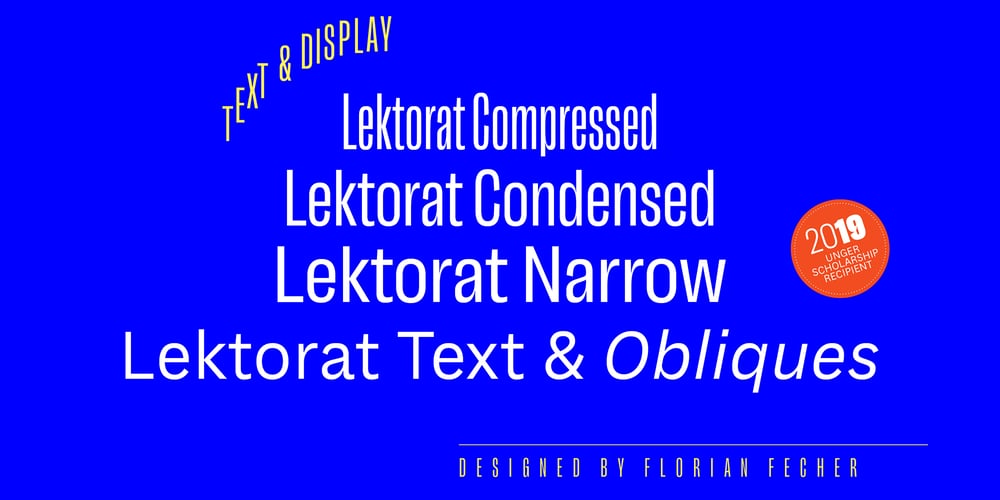
Lektorat Font Family was designed by Florian Fecher and published by TypeTogether. Lektorat contains 27 styles and family package options. Florian Fecher’s Lektorat font family is one for the books, and for the screens, and for the magazines. While an editorial’s main goals are to entertain, inform, and persuade, more should be considered. For example, clear divisions are necessary, not just from one article to the next, but in how each is positioned as op-ed or fact-based, infographic or table, vilifying or uplifting. From masthead to colophon, Lektorat has six concise text styles and 21 display styles to captivate, educate, and motivate within any editorial purpose.Magazines and related publications are notoriously difficult to brand and then to format accordingly. The research behind Lektorat focused on expression versus communication and what it takes for a great typeface to accomplish both tasks. In the changeover from the 19th to 20th century, German type foundry Schelter & Giesecke published several grotesque families that would become Lektorat’s partial inspiration. Experimentation with concepts from different exemplars gave birth to Lektorat’s manifest character traits: raised shoulders, deep incisions within highly contrasted junctions, and asymmetrical counters in a sans family.After thoroughly analysing magazine publishing and editorial designs, Florian discovered that a concise setup is sufficient for general paragraph text. So Lektorat’s text offering is concentrated into six total styles: regular, semibold, and bold with their obliques. Stylistic sets are equally minimal; an alternate ‘k, K’ and tail-less ‘a’ appear in text only. No fluff, no wasted “good intentions”, just a laser-like suite to focus the reader on the words.The display styles were another matter. They aim to attract attention in banners, as oversized type filling small spaces, photo knockouts, and in subsidiary headings like decks, callouts, sections, and more. For these reasons, three dialed-in widths — Narrow, Condensed, and Compressed — complete the display offerings in seven upright weights each, flaunting 21 headlining fonts in total. If being on font technology’s cutting edge is more your goal, the Lektorat type family is optionally available in three small variable font files for ultimate control and data savings.The Lektorat typeface was forged with a steel spine for pixel and print publishing. It unwaveringly informs, convincingly persuades, and aesthetically entertains when the tone calls for it. Its sans serif forms expand in methodical ways until the heaviest two weights close in, highlighting its irrepressible usefulness to the very end. Lektorat is an example of how much we relish entering into an agreed battle of persuasion — one which both sides actually enjoy.